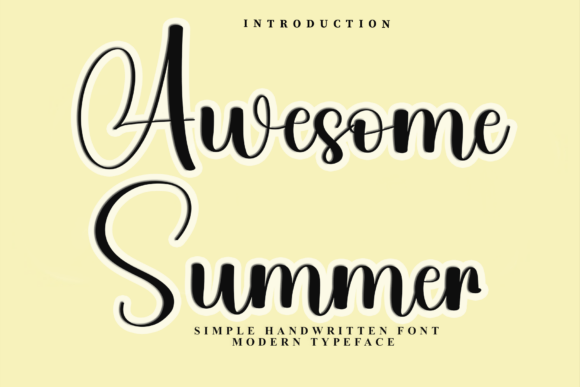
Discover the Charm of Awesome Summer Font
I’ll never forget the summer I spent working on a design project that felt like it was going nowhere. My client wanted a font that was both playful and elegant, but I was struggling to find the perfect fit. That’s when I stumbled upon Awesome Summer, a beautiful and eye-catching font that changed the game. In this article, I’ll share my experience with this amazing font, its features, and how to make the most of it in your designs.
A First Impression: What Makes Awesome Summer Special
Awesome Summer is a font designed with a soft, unique touch that sets it apart from more traditional fonts. Its distinctive strokes give it a special character, making it meaningful and versatile for future use. With various characters, it’s perfect for design projects, crafts, and other creative works.
Here’s what I love about Awesome Summer:
- ✨ Unique and eye-catching design: The font’s soft, rounded edges and distinctive strokes make it stand out.
- ✅ Highly versatile: It can be used for a wide range of projects, from design and crafts to digital and print media.
And here are a few quirks to keep in mind:
- 🤔 Some characters may require manual kerning: While the font is generally well-spaced, you might need to adjust the kerning for certain character combinations.
- ⚠️ Limited availability of language support: Awesome Summer might not support all languages, so be sure to check the character set before using it for a multilingual project.
The Story Behind Awesome Summer
Awesome Summer was designed with the intention of creating a font that was both unique and versatile. The designer aimed to craft a font that would be perfect for creative projects, crafts, and other artistic endeavors. While the designer’s background is unknown, it’s clear that they put a lot of thought into creating a font that would stand out in the world of typography.
| What makes Awesome Summer unique? | Awesome Summer’s distinctive strokes and soft, rounded edges set it apart from other fonts. |